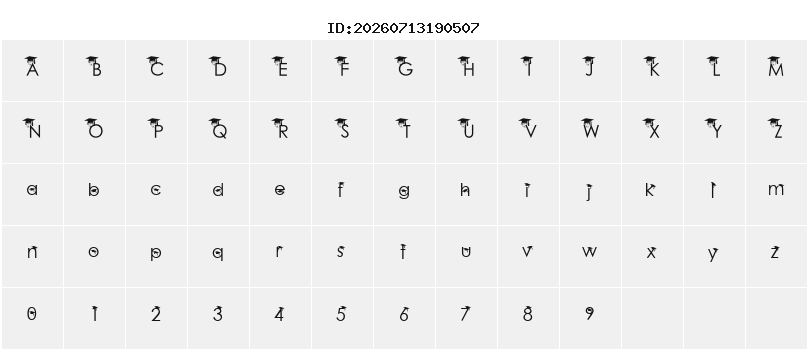
• Font Name: Baby Geniuses 2
• Font ID: Macromedia Fontographer 4.1 Baby Geniuses 2 Normal
• Full Font Name: Baby Geniuses 2 Normal
• Version: Macromedia Fontographer 4.1 10/20/2000
• PostScript Name: BabyGeniuses2Normal
• Character Count: 65
• Copyright: Created by Artsy Lady in NJ, October, 2000
About Baby Geniuses 2.ttf
Baby Geniuses 2.ttf is a modern, elegant sans-serif font designed for ultimate readability and visual harmony. Perfect for branding, headlines, web design, and print materials.